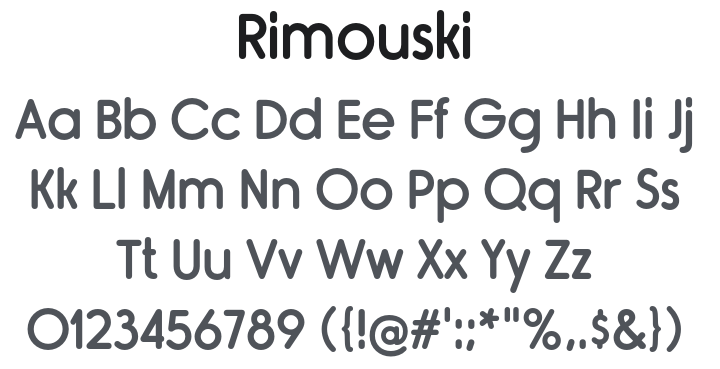
Rimouski Font
About Rimouski
Rimouski is a rounded geometric sans that balances precision and warmth. Built from clean circular forms and straight strokes, it avoids the coldness of strict geometry through softened edges and balanced proportions. Its slightly wide stance keeps text open and readable across display and dense layouts. Five weights with italics provide flexibility, while stylistic alternates introduce angular cuts and playful quirks for more expressive use in branding or editorial design. Supporting a broad Latin character set, Rimouski shifts easily between functional clarity and friendly personality, offering modern design with a human touch.